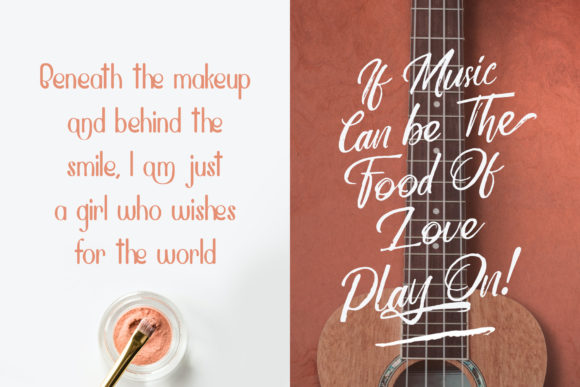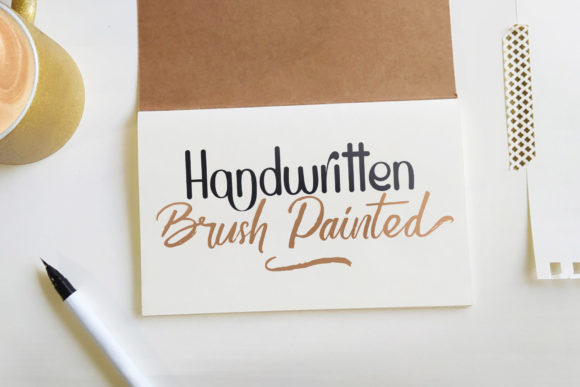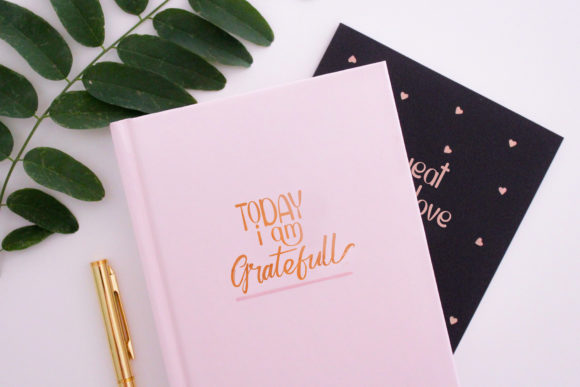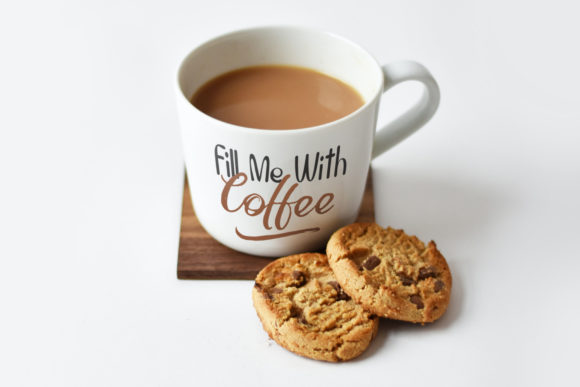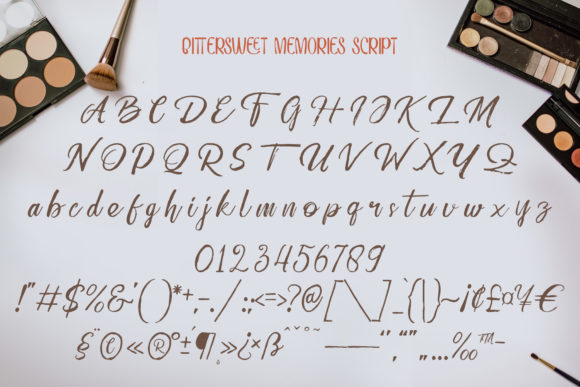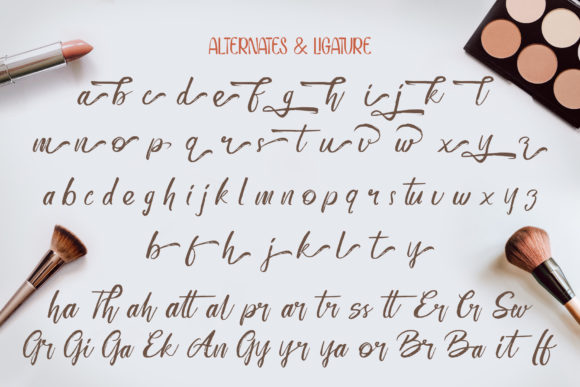
Bittersweet Memories Font: Elevate Your Designs with a Lovely Duo Font
Are you a designer or crafter looking for a unique and captivating font to add a personal touch to your creations? Look no further than Bittersweet Memories, a charming duo font that combines a beautiful script and display font. This delightful font is sure to bring a smile to your face and make your designs stand out from the crowd.
What Makes Bittersweet Memories Font So Special?
Bittersweet Memories is more than just a font – it’s an experience. With its joyful, friendly, and relaxed vibe, this font is perfect for designers and crafters who want to add a touch of warmth and personality to their work. Whether you’re creating invitations, greeting cards, or social media graphics, Bittersweet Memories is the perfect choice.
The Power of Duo Fonts
Bittersweet Memories is a duo font, which means it comes with two complementary fonts: a script font and a display font. This allows you to mix and match the fonts to create a unique look that suits your design style. The script font is perfect for adding a touch of elegance and sophistication, while the display font is great for headlines and titles.
One of the best features of Bittersweet Memories is that it’s PUA (Private Use Area) encoded. This means that you can access all of the glyphs and swashes with ease, giving you even more creative freedom to customize your designs. With PUA encoding, you can easily insert special characters, such as flourishes and ornaments, to add an extra touch of personality to your work.
Bittersweet Memories is a versatile font that’s perfect for a wide range of design projects, including:
- Stationery and journaling
Why Choose Bittersweet Memories Font?
So why choose Bittersweet Memories font for your next design project? Here are just a few reasons:
- Unique and eye-catching design
- Joysful, friendly, and relaxed vibe
- Perfect for a wide range of design projects
Get Ready to Fall in Love with Bittersweet Memories
In conclusion, Bittersweet Memories font is a must-have for designers and crafters who want to add a personal touch to their creations. With its unique design, joyful vibe, and PUA encoding, this font is perfect for a wide range of design projects. Whether you’re a seasoned designer or just starting out, Bittersweet Memories is sure to become a favorite font in your collection.